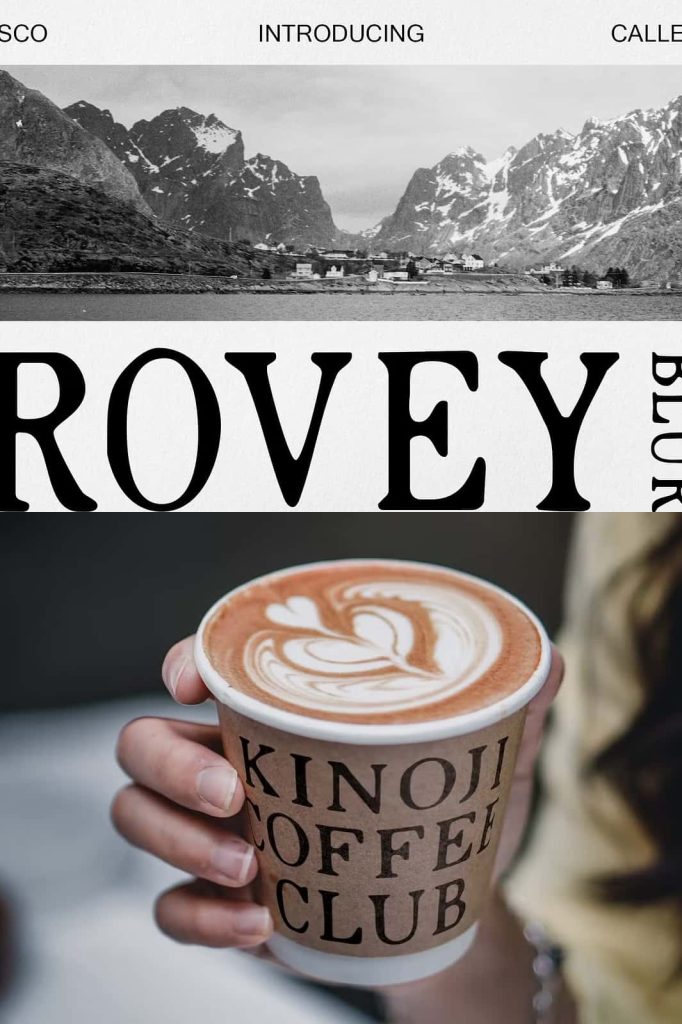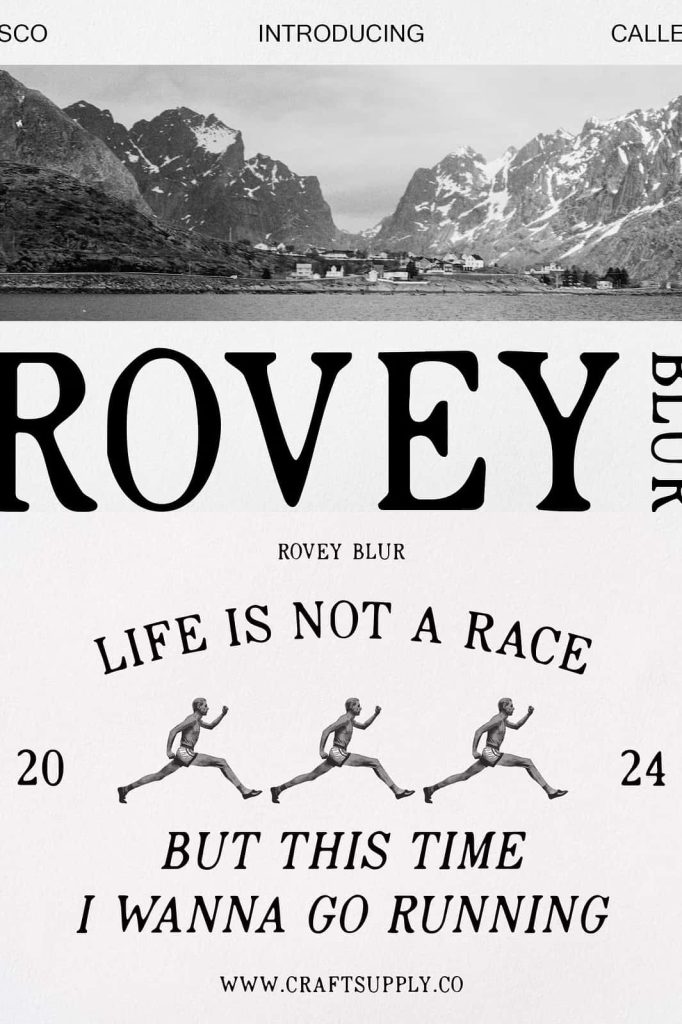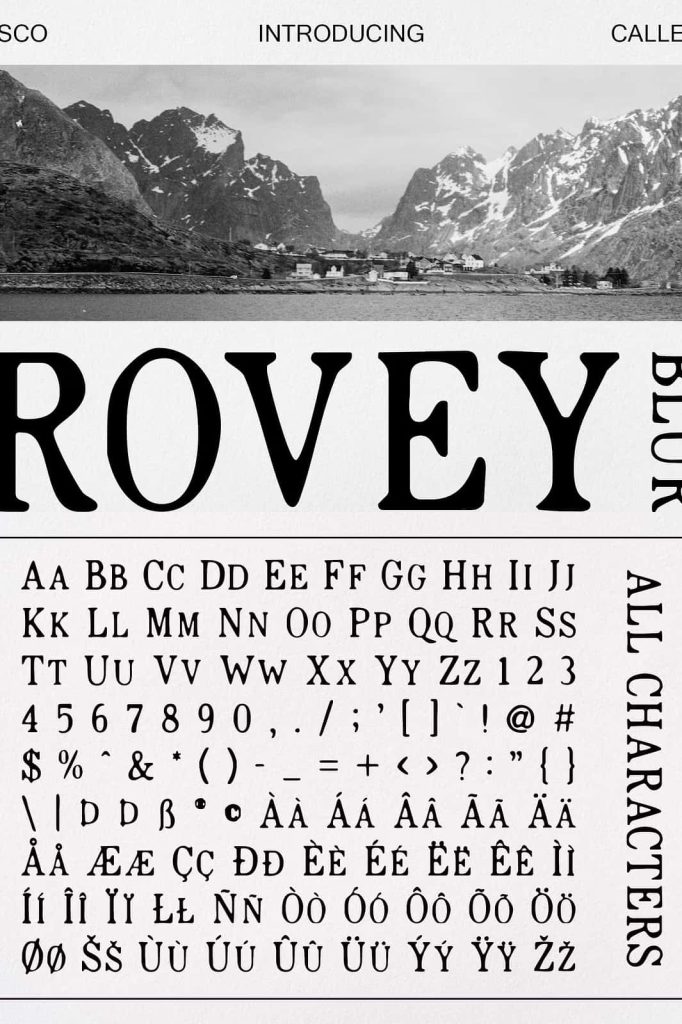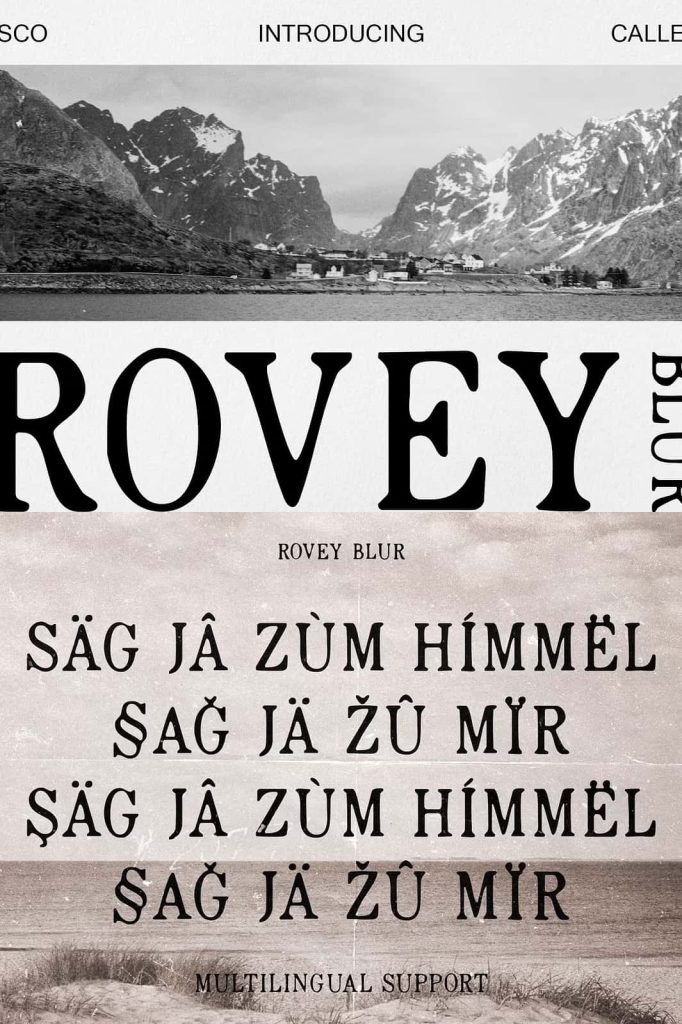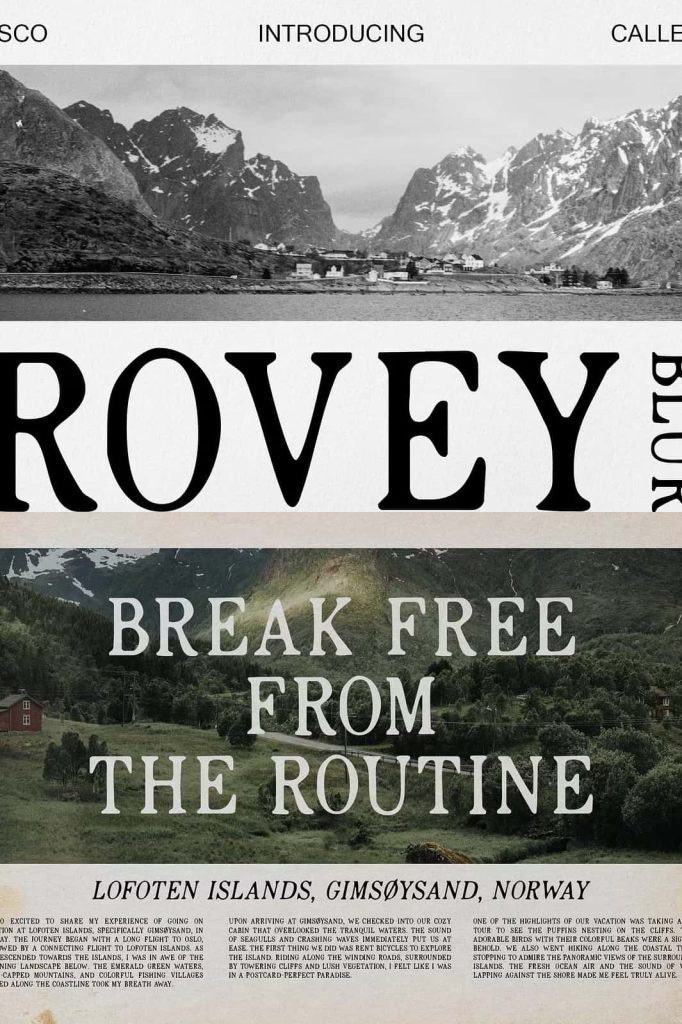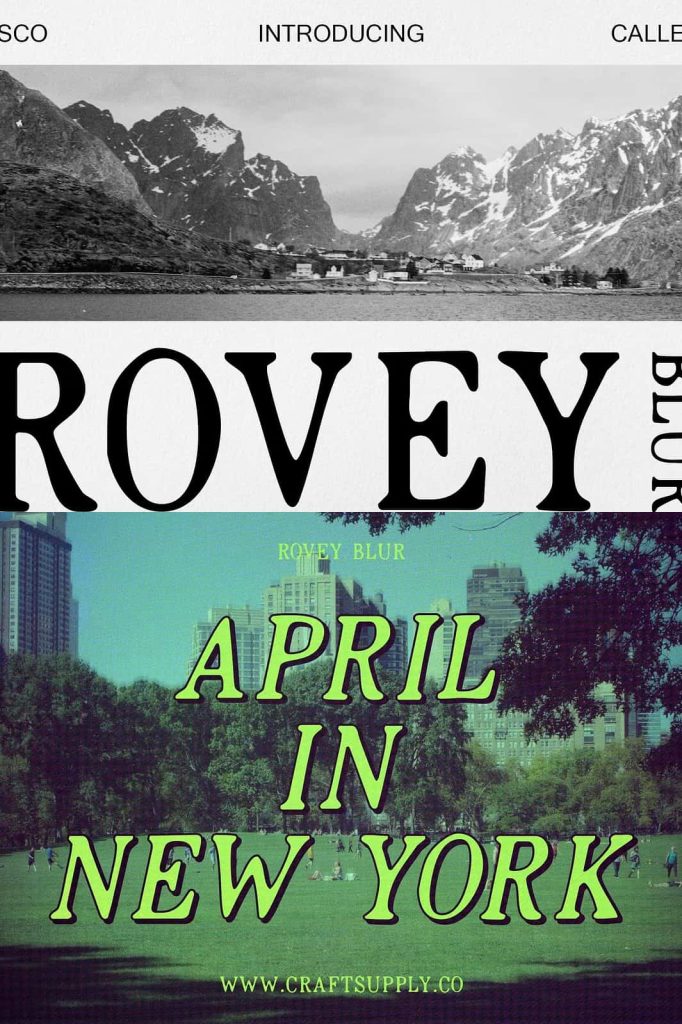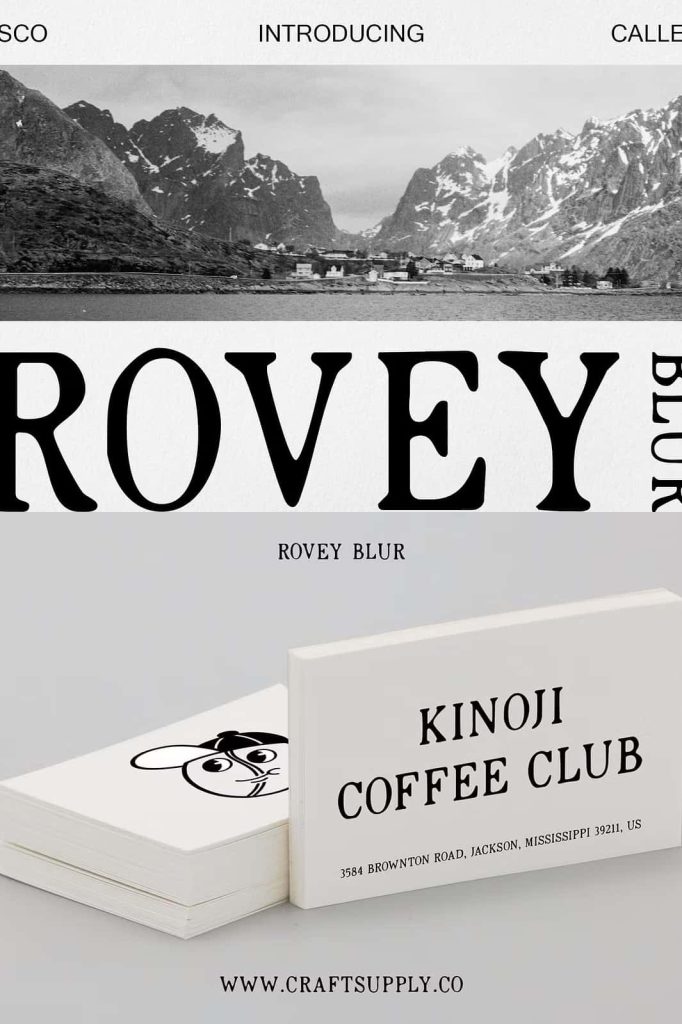
Rovey Blur is a serif font with a vintage vibe and a blur style, perfect for display purposes. Its classic design combined with blurred elements creates a nostalgic and captivating look, ideal for posters, branding, and other projects that evoke a sense of the past.